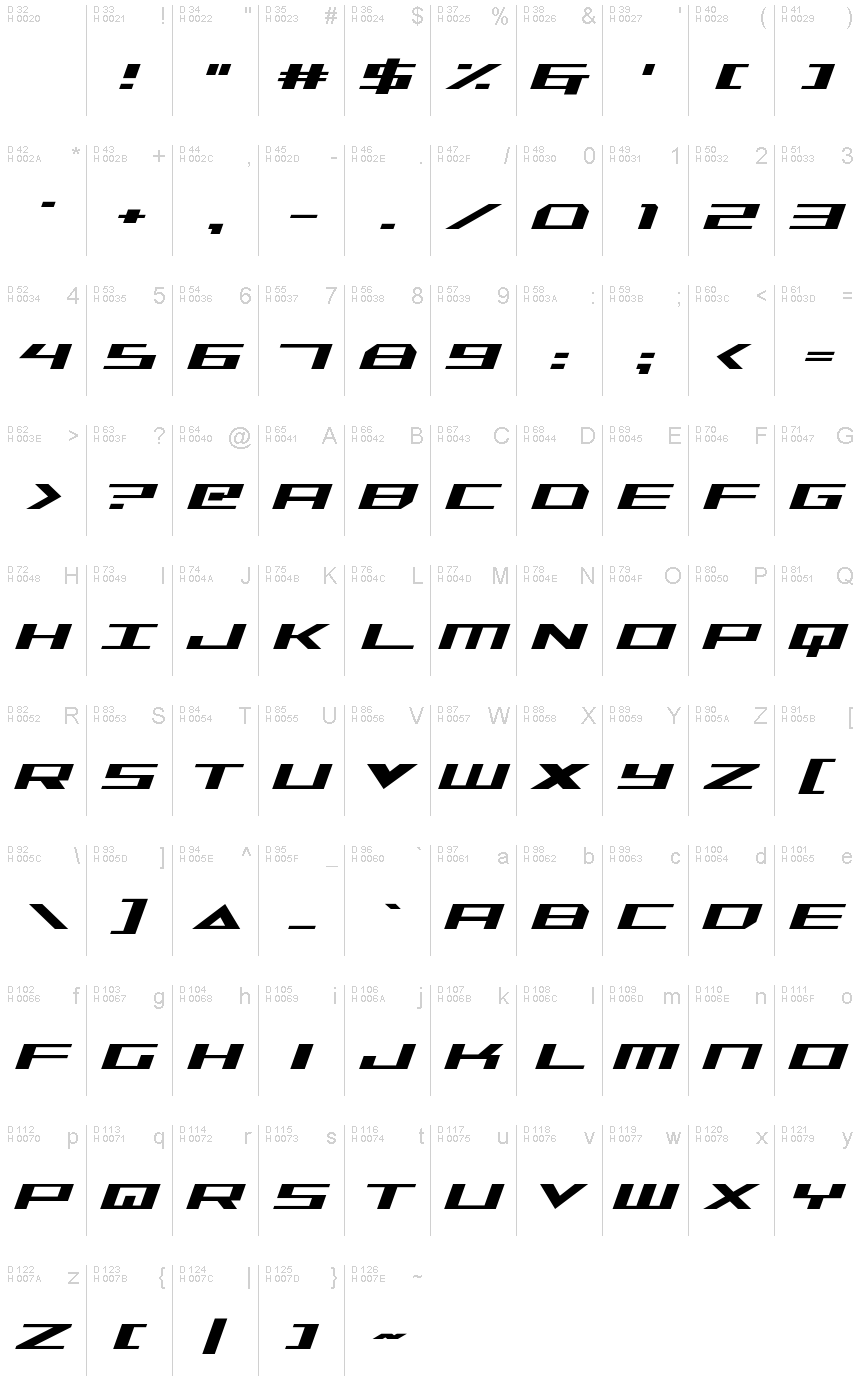
Trireme Condensed Italic by Daniel Zadorozny of Iconian Fonts is a free techno display font with a sharp forward slant. Broad diagonal cuts break through the streamlined letters. Their squared curves and tightly fitted forms suggest racing graphics and futuristic machinery.
Motorsport and science fiction are its strongest subjects, making it suited to game titles, team merchandise, and event posters. The sliced construction can echo speed lines, vehicle panels, or interface graphics. Album covers and sports branding offer another home for its aggressive mechanical styling.